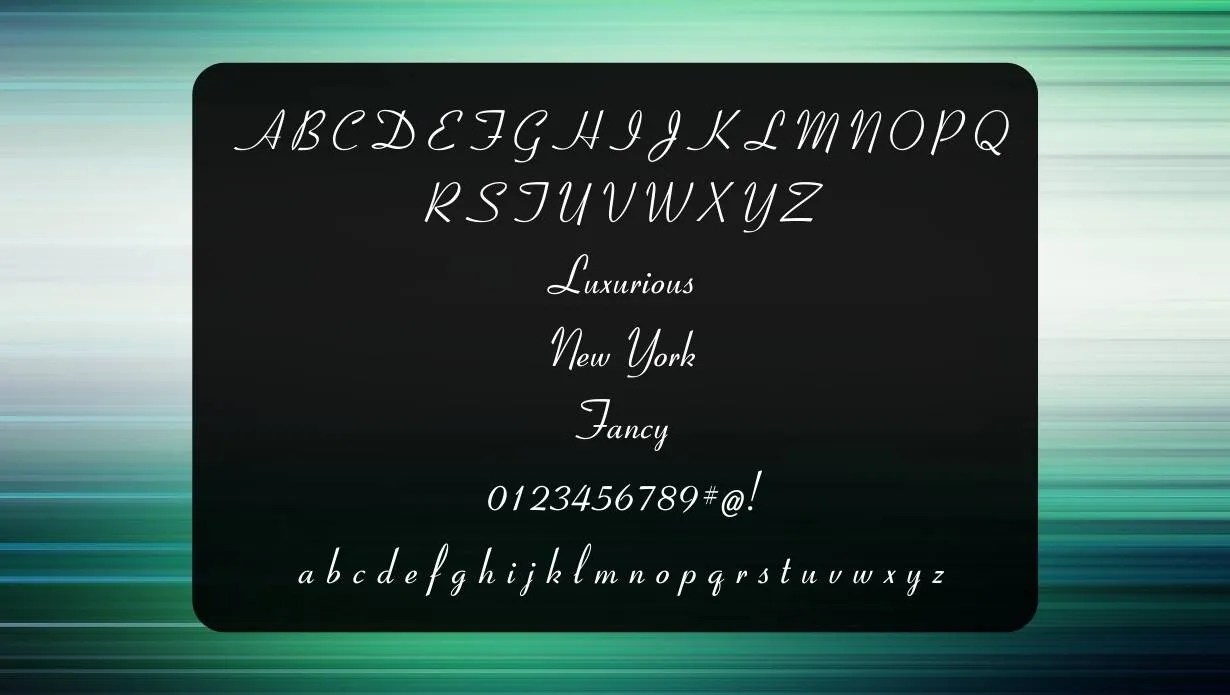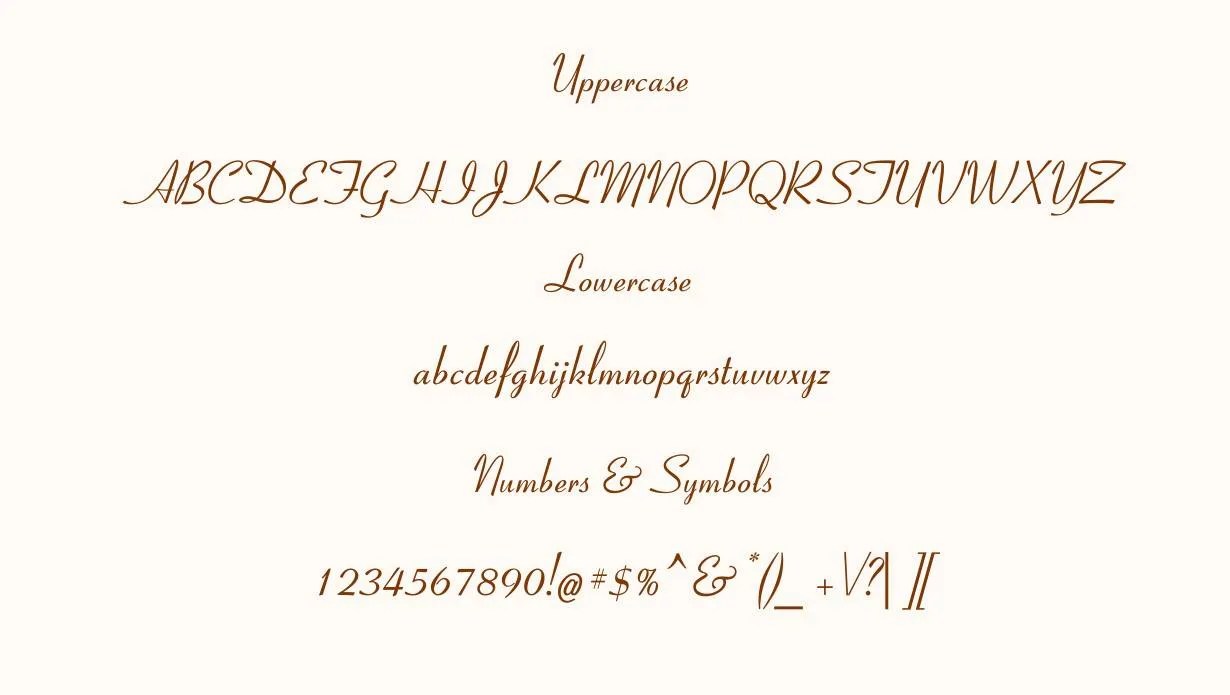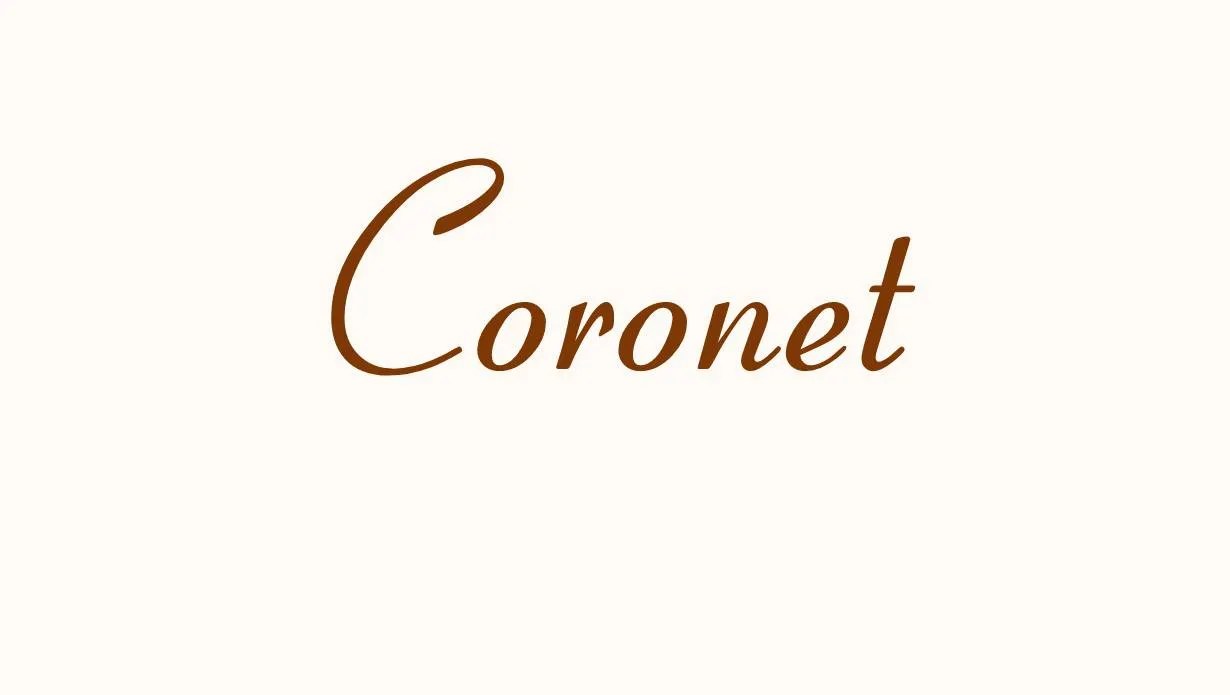
Font Free Download Font Coronet Std Bold Fontsplace is the best place to download coronet bold for free. Check out examples of the coronet lt std bold font at azfonts. The font is only for commercial purposes only and you must be purchased. Coronet bold is the perfect font for all your fun designs. Download coronet® std bold font. Download coronet® bold mt, provided on fonts.com from. Download Font Coronet Std Bold.
Stencil Std Bold Download For Free, View Sample Text, Rating And More Download Font Coronet Std Bold Download free and premium fonts. Check out examples of the coronet lt std bold font at azfonts. Free fonts by category, type, daily updates. Coronet bold is the perfect font for all your fun designs. Moreover, you can embed it to your website. The font is only for commercial purposes only and you must be purchased. Download coronet® std bold. Download Font Coronet Std Bold.
Script SSi Font Download For Free, View Sample Text, Rating Download Font Coronet Std Bold Check out examples of the coronet lt std bold font at azfonts. Download for free coronet lt std bold. Coronet bold is the perfect font for all your fun designs. The font family is coronet. Download coronet® bold mt, provided on fonts.com from monotype imaging. Download free and premium fonts. The font is only for commercial purposes only and you. Download Font Coronet Std Bold.